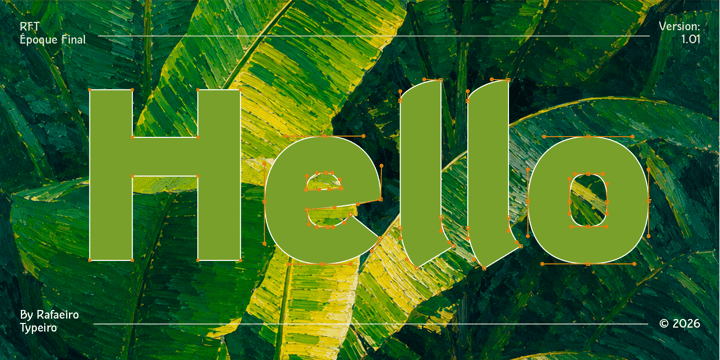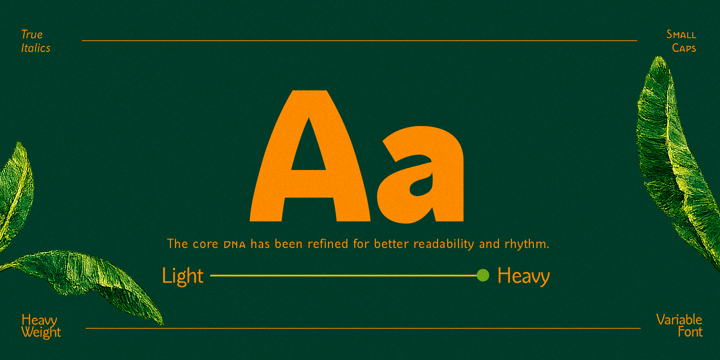
The Ultimate Epoque Collection
Step into a reimagined era of design with the Époque family, inspired by the timeless elegance of Art Deco. This collection infuses vintage charm with bold, modern audacity. During our exclusive Bubble Launch, seize the rare opportunity to own the complete Époque DNA in one monumental package. Featuring 3 Distinct Personalities and 1 Shared Genetic Code, this bundle includes Époque Seria, Époque, and Époque Final. While they share architectural roots, each font has developed its own unique identity. They are designed to complement each other, offering a versatile arsenal of styles perfect for any project that demands an unapologetic personality. With 30 unique style files included, this bundle serves as the ultimate toolkit for designers looking to make a statement. Don’t miss this one-time opportunity; the Époque Bubble Launch Bundle is your chance to acquire the complete evolution of this beloved typeface. Enhance your typographic toolkit with unparalleled character, precision, and playfulness today.